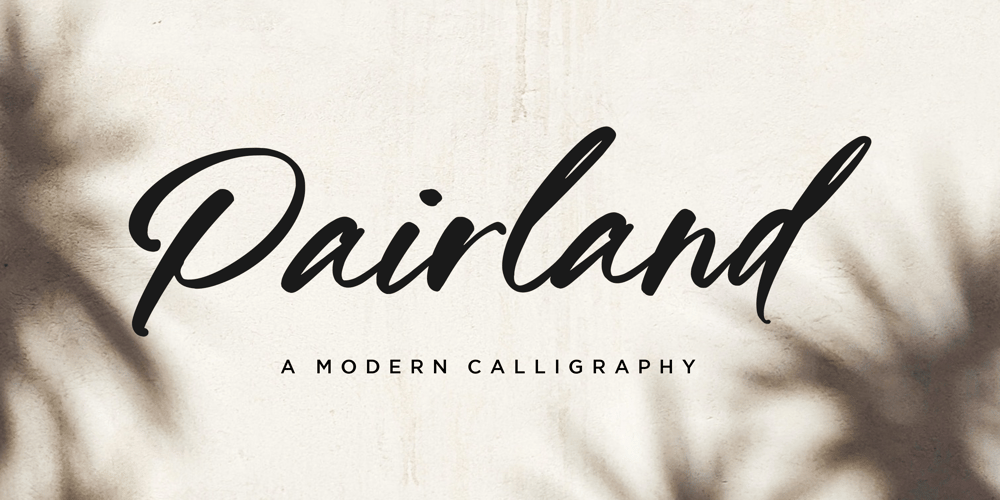
Pairland Font Family was designed by Restu Angga and published by Balpirick. Pairland contains 1 styles and family package options. Introducing by Balpirick Studio!Pairland is a Modern Calligraphy Font that’s perfect for adding a touch to your design projects!Crafted with care and attention to detail, this font is incredibly versatile and can be used for a range of design projects, including logos, branding, invitations, and more. Its modern, handwritten style gives it a unique character that’s sure to make an impact.Also multilingual supportThank you!